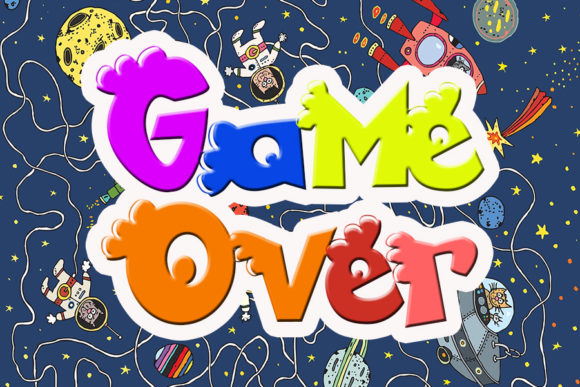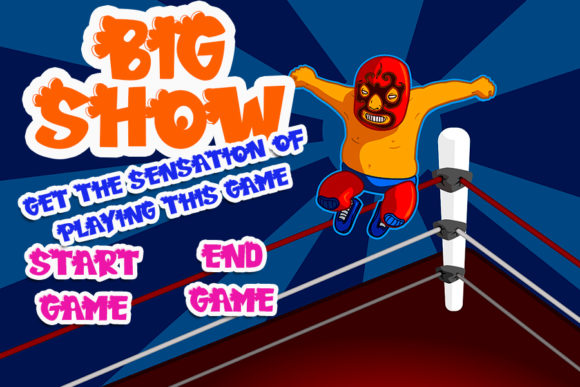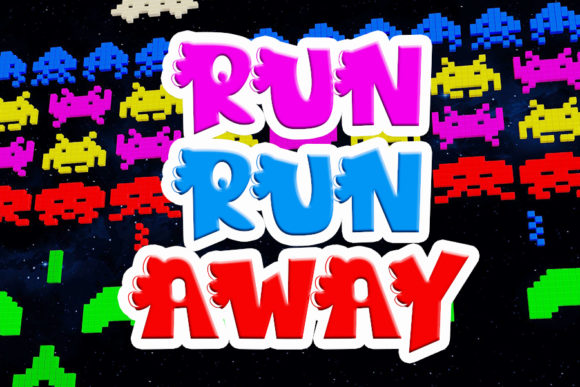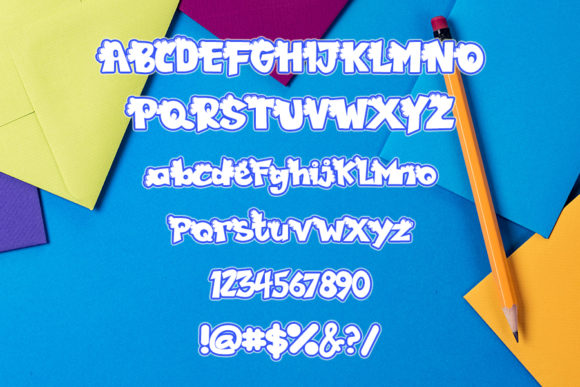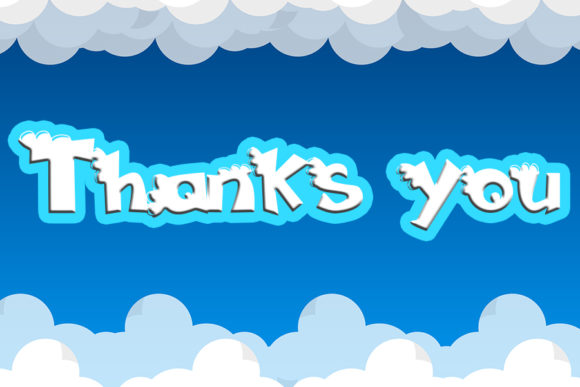
The Joy of Funny Font: Elevating Your Designs with a Playful Twist
I’ll never forget the time I was working on a project for a children’s birthday party invitation. I had the design concept nailed, but something was missing – the perfect font. I scrolled through page after page of Google Fonts, but nothing seemed quite right. That’s when I stumbled upon Funny Font, and it was love at first sight! 🎉
This cute and fun display font has a way of adding an incredibly joyful touch to your designs. In this article, I’ll share my experience with Funny Font, its features, and how to make the most of it in your creative projects.
An Honest Review of Funny Font
- ✨ Playful and whimsical feel: Funny Font is perfect for designs that need a dash of fun and personality.
- ✅ Highly legible: Despite its playful nature, Funny Font remains easy to read, even in smaller sizes.
- 💡 Versatile: Use it for titles, headings, or even short paragraphs – Funny Font adapts well to different design contexts.
While Funny Font is an excellent choice for many projects, there are a few things to keep in mind:
- 🤔 Not suitable for body text: Funny Font is best used for display purposes, as it may become difficult to read in longer passages.
- ⚠️ Limited glyphs: While Funny Font has a range of characters, it may not have every special character or symbol you need.
- Experiment with OpenType features like ligatures and stylistic alternates to add more flair to your text.
The Backstory of Funny Font
Funny Font was created by a team of designers who wanted to bring a little joy and whimsy to the world of typography. Inspired by the playful and imaginative world of children’s illustrations, they crafted a font that’s both fun and functional. Whether you’re designing for kids or adults, Funny Font is sure to bring a smile to your audience’s faces!
Q: What is Funny Font best used for?
A: Funny Font is perfect for display purposes, such as titles, headings, and short paragraphs. It’s ideal for designs that need a playful and whimsical touch.
Q: Is Funny Font available in different languages?
A: Funny Font may not have full language support, but it does include a range of characters and glyphs to help you create multilingual designs.